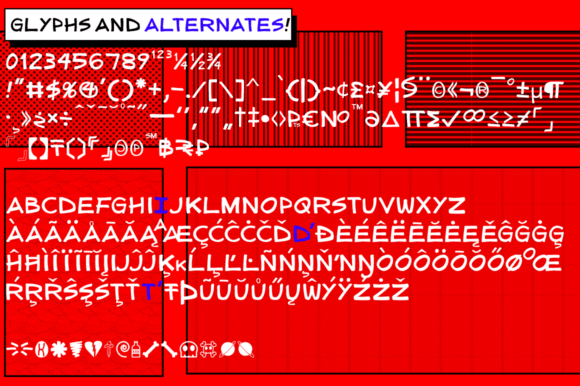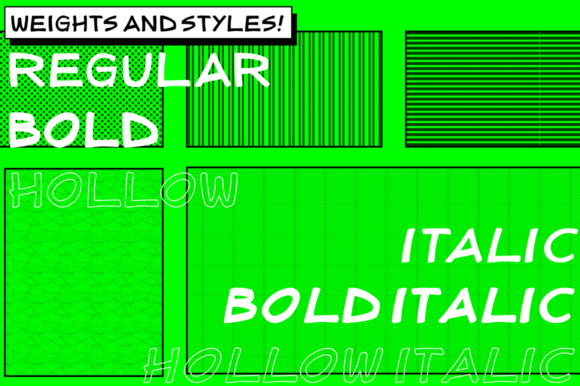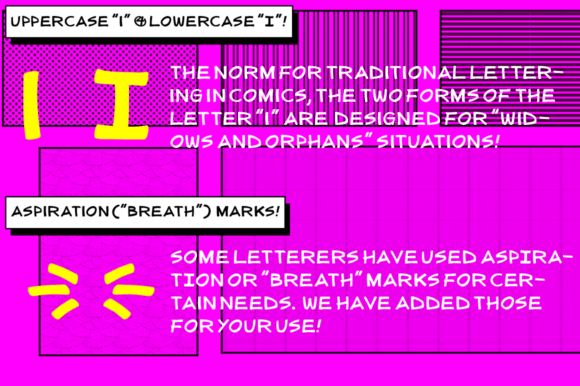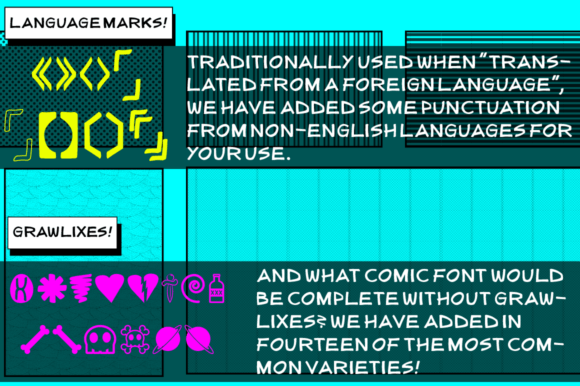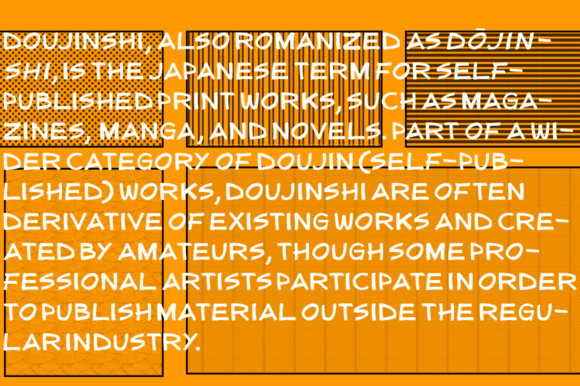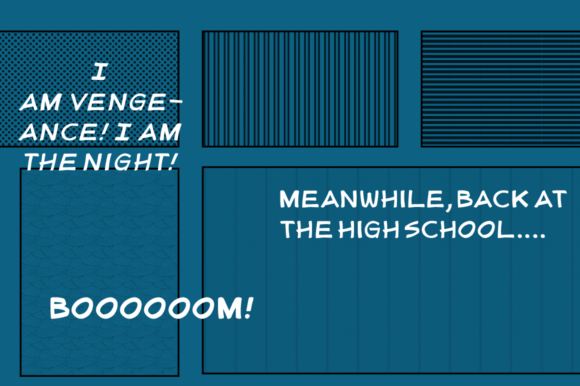
The Birth of a Unique Comic Font
Have you ever sat down with a pencil and paper, eager to bring your comic book ideas to life? The blank page stares back at you, waiting for your creative spark to ignite. That’s exactly where we started, too – with a desire to create something truly unique for our comic projects. We scoured the internet for the perfect font, but nothing seemed to capture the handwritten feel we were going for. So, we took matters into our own hands and designed Doujinshi Sans – a font that embodies the essence of fan-made comics, or “doujinshi” in Japanese.
What makes Doujinshi Sans – Hollow Italic Font so valuable for designers is its ability to add a personal touch to any comic project. With its custom-designed feel, it’s the perfect alternative to relying on generic comic fonts. We hope that you’ll give it a try and see the difference it can make in your own creative endeavors.
Doujinshi Sans – Hollow Italic Font Key Features
- Font Type: Sans-Serif, Italic
- Unique Characteristic: Hollow font style, ideal for creating a distinctive and eye-catching visual effect
Doujinshi Sans – Hollow Italic Font Review
Overall, I’m impressed with the unique style of Doujinshi Sans – Hollow Italic Font. It’s got a certain charm to it that sets it apart from more common fonts. ✨ The hollow style gives it a modern and edgy feel, perfect for those who want to add a bit of personality to their designs.
One of the things that works well with this font is its versatility. It can be used for a wide range of projects, from posters to social media graphics. The italic style adds a nice touch of sophistication, making it suitable for more formal projects as well.
Here are some of the font’s strengths:
- Unique hollow style adds a modern touch
- Italic style suitable for formal projects
- Highly versatile, suitable for various design projects
- Easy to read, even in smaller sizes
- May not be suitable for very formal or professional projects
- Some letters may appear a bit too thin or fragile
- May not be as readable in very large sizes
Overall, I’d say Doujinshi Sans – Hollow Italic Font is a great addition to any designer’s toolkit. It’s perfect for those who want to add a bit of flair to their designs without sacrificing readability.
Some common use cases for Doujinshi Sans – Hollow Italic Font include:
Creating anime-style comics or manga
Designing Japanese-inspired graphics or logos
Adding a unique touch to your typography projects
Experiment with different font sizes, colors, and styles to get the most out of Doujinshi Sans – Hollow Italic Font.
Alternatives to Doujinshi Sans – Hollow Italic Font for Designers
1. Comicraft’s Comic Sans
Comicraft’s Comic Sans is a bold and playful font that is similar to Doujinshi Sans – Hollow Italic Font in its informal and casual tone. However, it has a more rounded and childlike feel, making it suitable for comic books, cartoons, and children’s educational materials. When to use: Comic books, cartoons, children’s educational materials.
Comparison: Comicraft’s Comic Sans is more playful and informal than Doujinshi Sans – Hollow Italic Font, with a more rounded and childlike feel.
Great Vibes is a handwritten font with a casual and relaxed tone, similar to Doujinshi Sans – Hollow Italic Font. It is suitable for creative projects, such as art books, graphic novels, and magazines. When to use: Creative projects, art books, graphic novels, magazines.